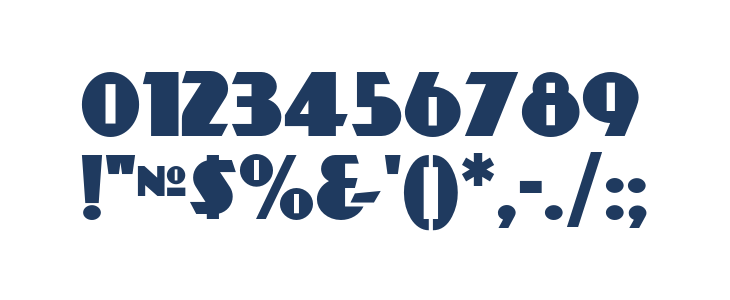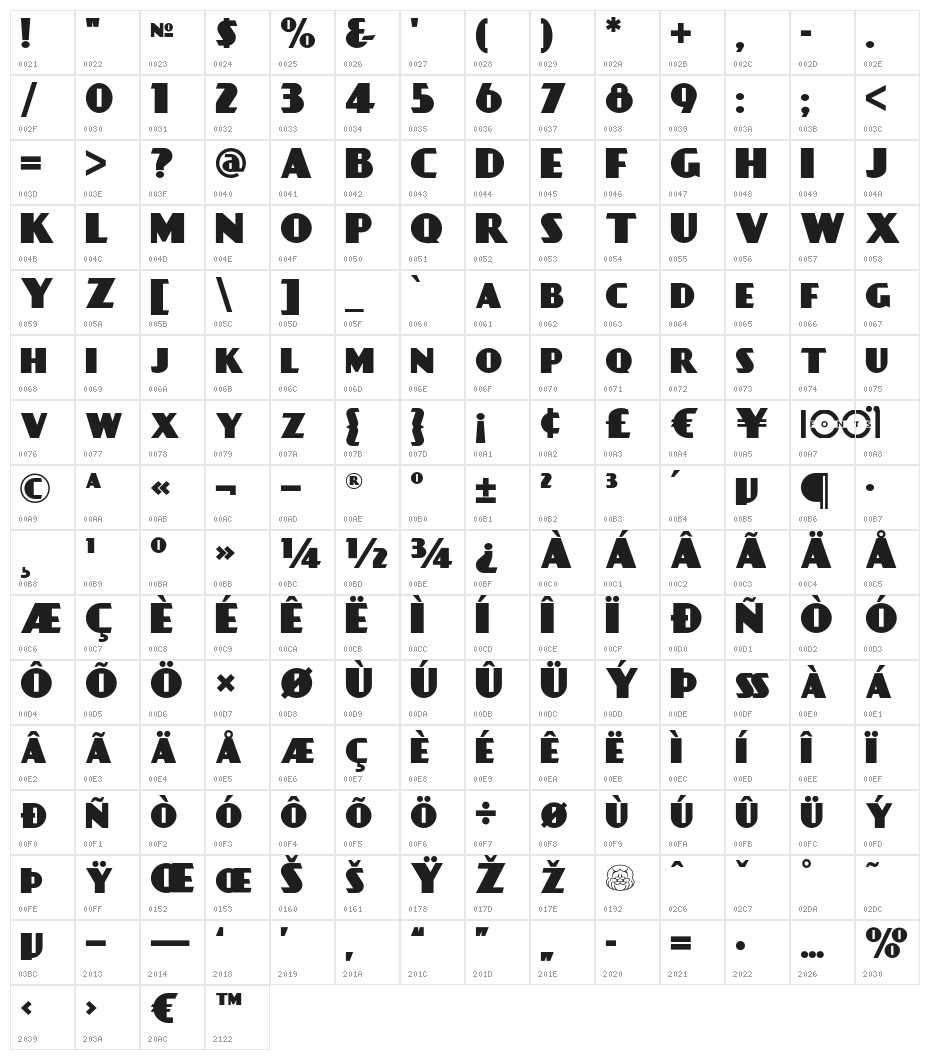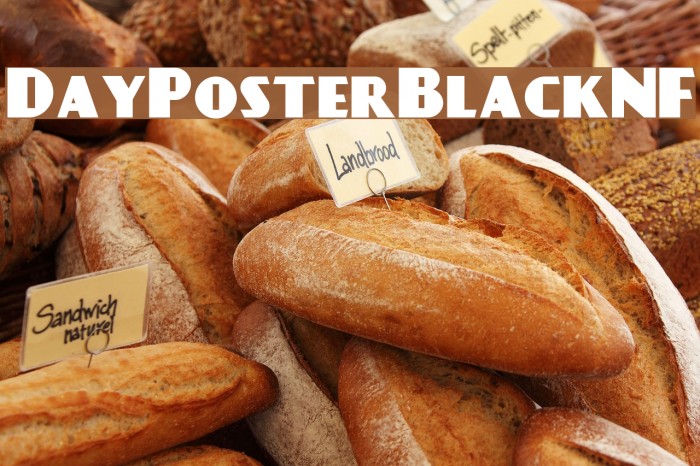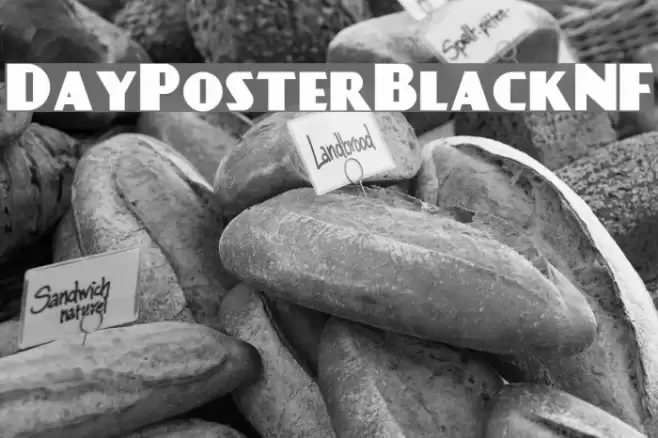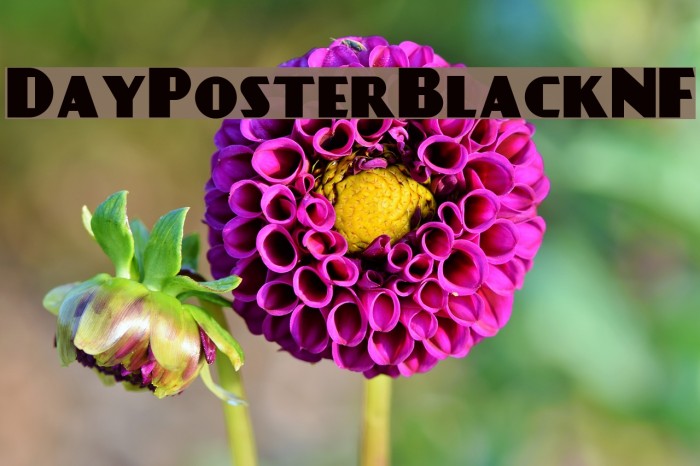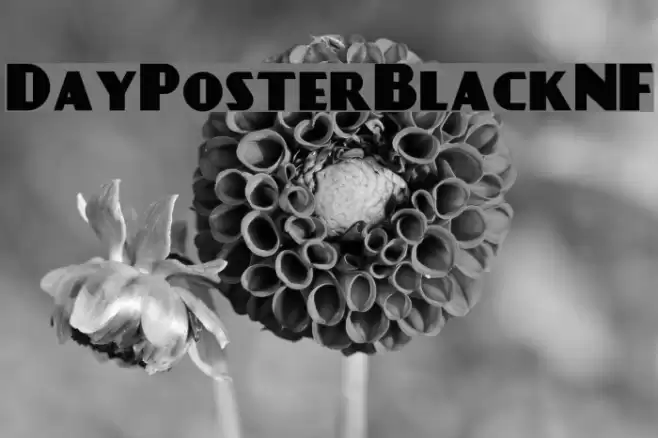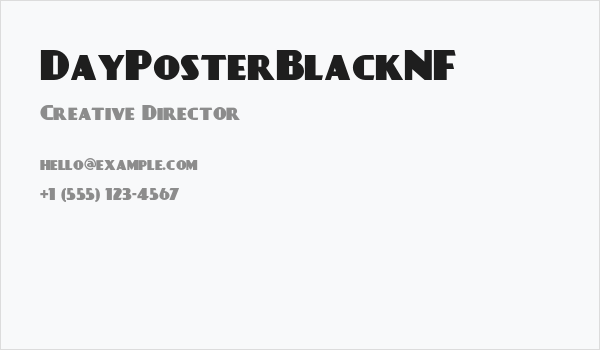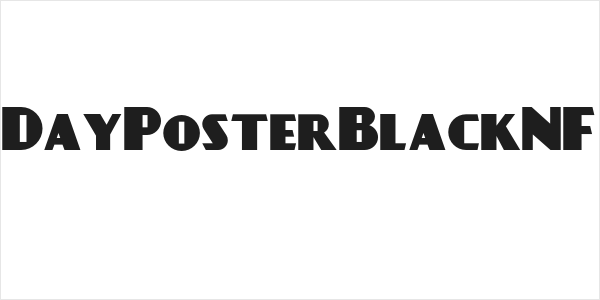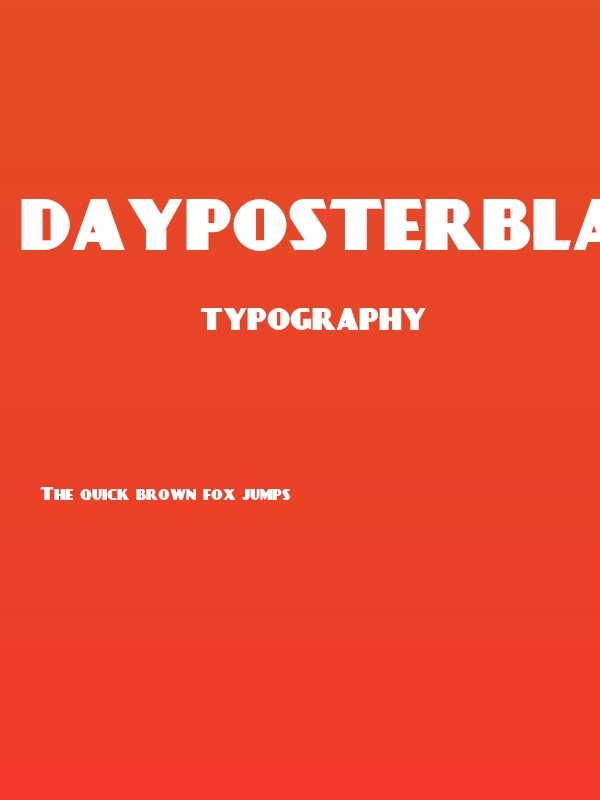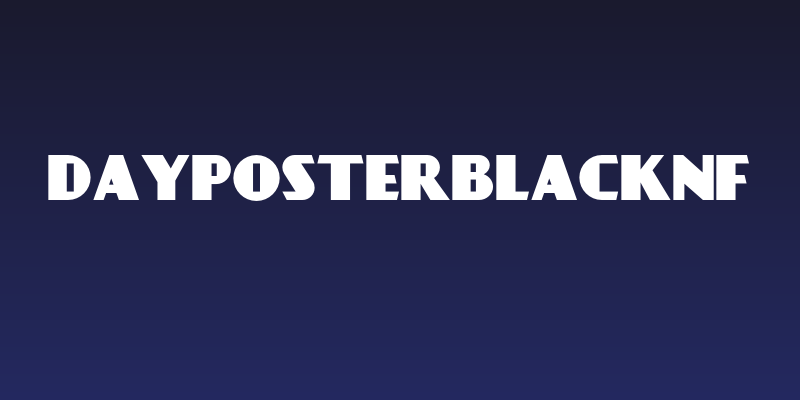
DayPosterBlackNF Font
DayPosterBlackNF Description
This bold and striking font features a strong, geometric design with thick, uniform strokes that create a powerful visual impact. The uppercase letters are particularly prominent, with sharp angles and a solid presence. The numbers and special characters maintain the same boldness, ensuring consistency across all text elements. Its design is reminiscent of vintage poster fonts, making it ideal for attention-grabbing headlines and displays. The font's boldness and geometric style lend it a modern yet timeless appeal, suitable for a variety of creative projects.